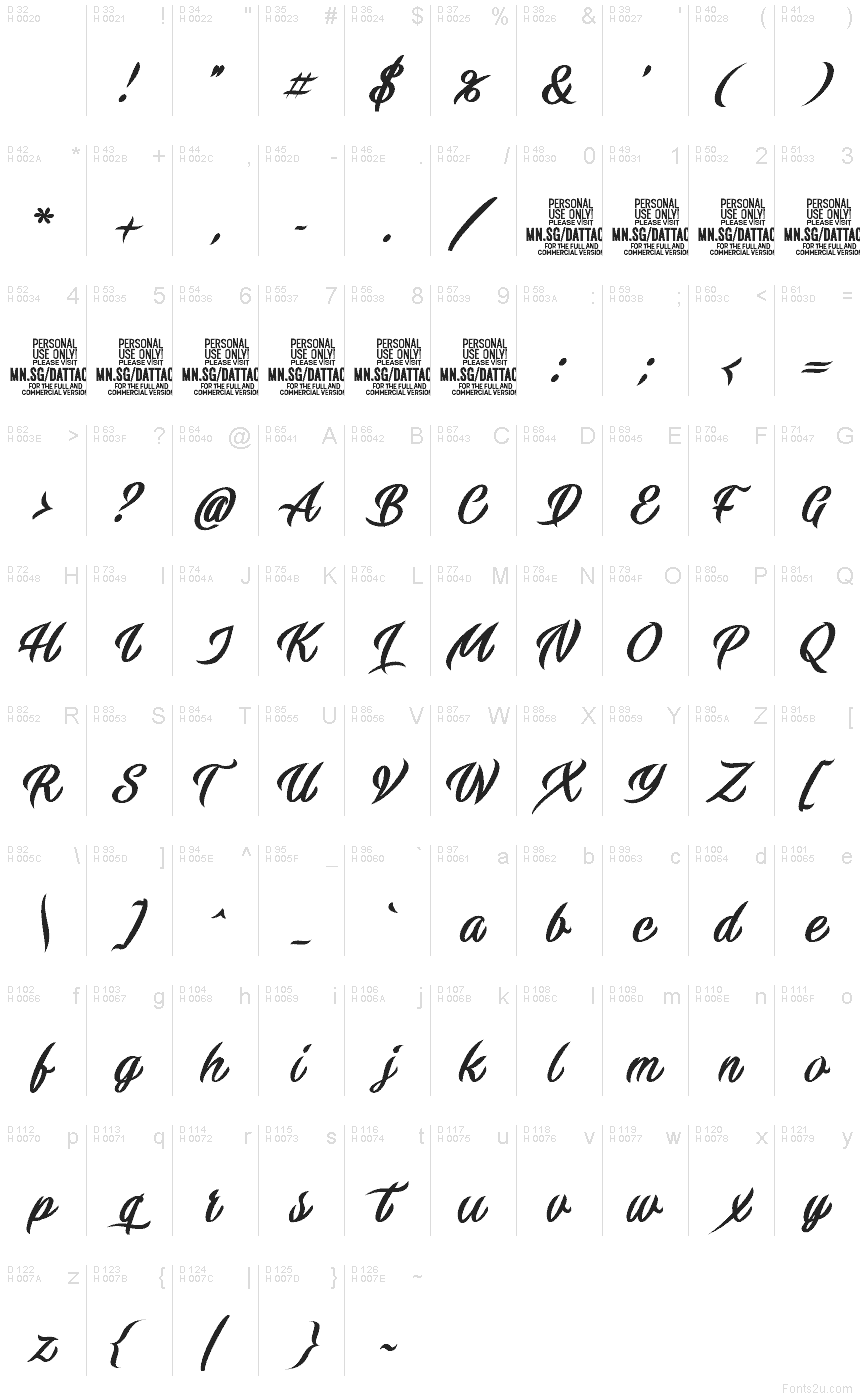
Dattacle Black PERSONAL USE Regular
Dattacle Black font by Mans Greback is a free brush script typeface. Part of the Dattacle family, it fuses classic tattoo flair with modern brush energy: quick, blade-like strokes, smooth connections, and a glossy, inky sheen that feels freshly painted. The rhythm is confident and fluid, giving words a swagger without turning messy.
Using Dattacle Black, headlines snap, logos feel hand-signed, and packaging or apparel graphics gain a bold, human pulse. It shines on posters, signage, social posts, and tattoo-inspired branding where a dramatic cursive is needed. Keep sizes generous and tracking snug; pair this free font with a neutral sans serif to let its sculpted curves take center stage.